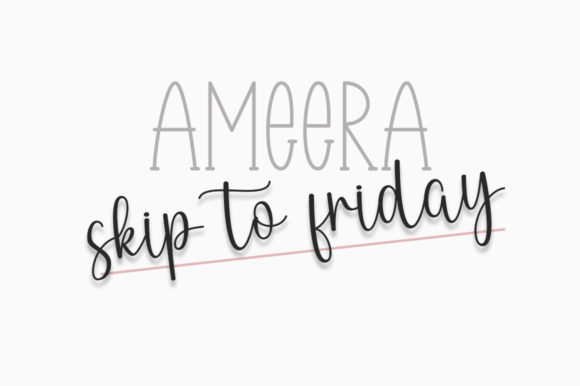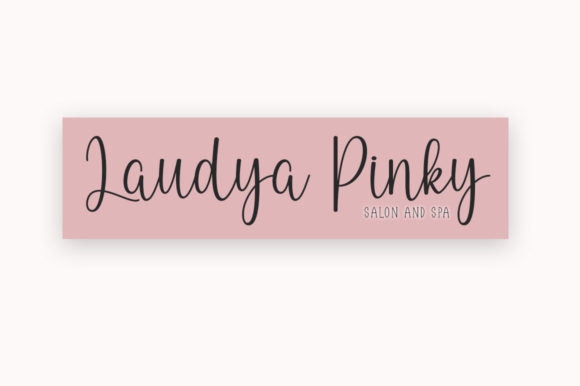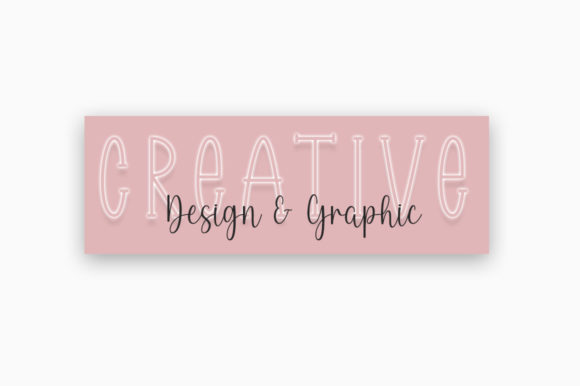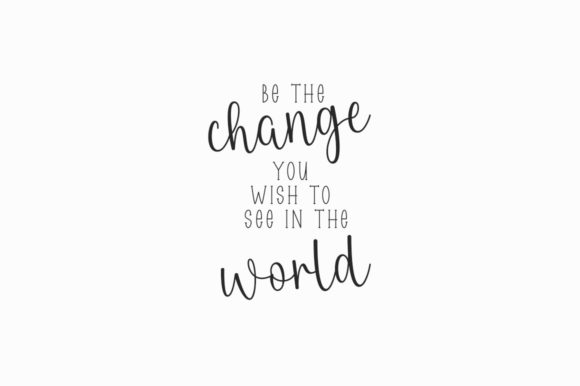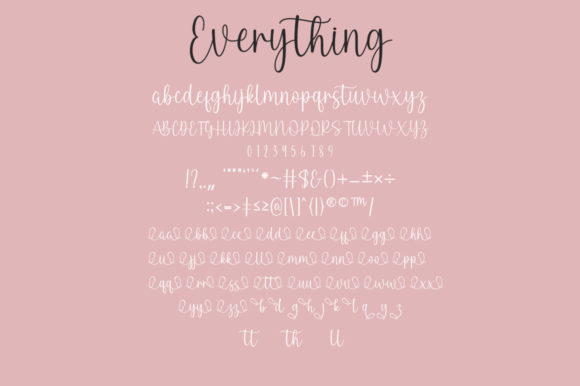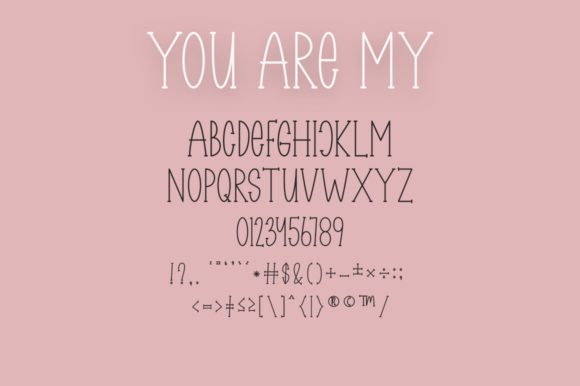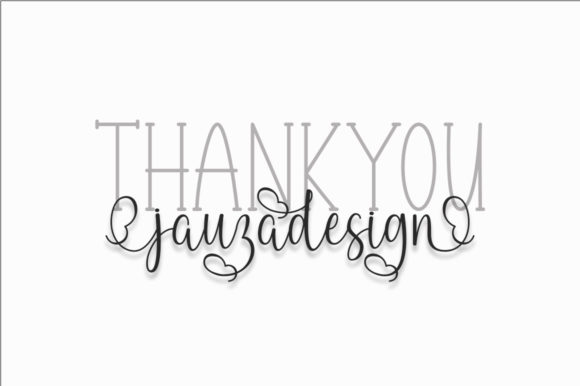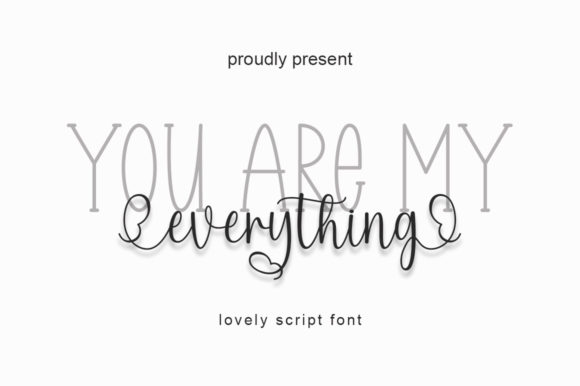
You Are My Everything Font
About You Are My Everything Font
**You Are My Everything** emerges as a delightful duo font, featuring both a sans-serif and script typeface. With characters that dance along the baseline, this font duo adds a touch of luxury to any design project you wish to create. The thoughtful design and inclusion of PUA encoding make You Are My Everything a versatile and accessible choice for projects seeking a luxurious spark.
The sans-serif and script combination in You Are My Everything ensures a dynamic and complementary pairing. The sans-serif font brings a modern and clean aesthetic, while the script font adds a touch of elegance and personalization. Together, they create a harmonious visual composition that can elevate a wide range of design projects.
The characters that dance along the baseline in the script font contribute to a dynamic and lively feel. This feature adds a playful and stylish touch, making You Are My Everything suitable for projects that aim to convey a sense of movement and luxury. Whether used for branding, invitations, or other design endeavors, this font duo brings a unique and eye-catching quality.
The inclusion of PUA encoding is a valuable feature, allowing easy access to all glyphs and swashes. Designers can effortlessly incorporate special characters and variations, enhancing the creative possibilities of You Are My Everything. This user-friendly aspect adds convenience and flexibility to the design process.
In essence, You Are My Everything transcends being just a font duo; it becomes a design asset that effortlessly combines modernity with elegance. Whether applied to branding, invitations, or any creative project, this font duo stands ready to add a luxurious spark. Embrace the dynamic interplay of sans-serif and script, and let You Are My Everything infuse your designs with a touch of sophistication and style.